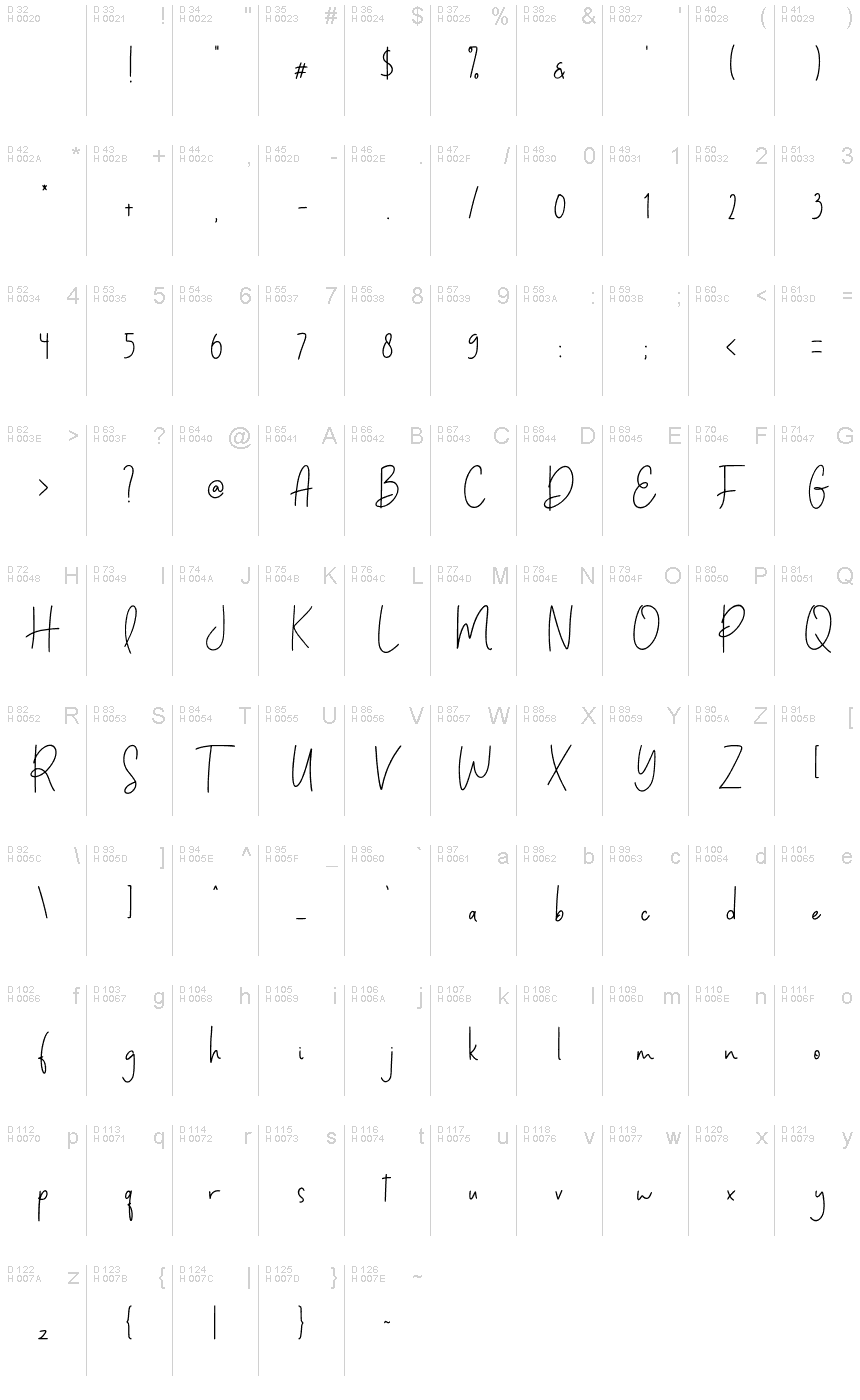
Clothingside
Clothingside, the extra-light handwritten font by Qwrtype Foundry, is the perfect choice for a variety of creative projects. Its delicate strokes add a sophisticated touch to wedding invitations and greeting cards, while its playful flair makes it suitable for children's books and product packaging. The unique character of Clothingside also works well for fashion branding and editorial layouts, adding a personalized touch to any project. Clothingside is sure to make an impact in any digital or print medium.